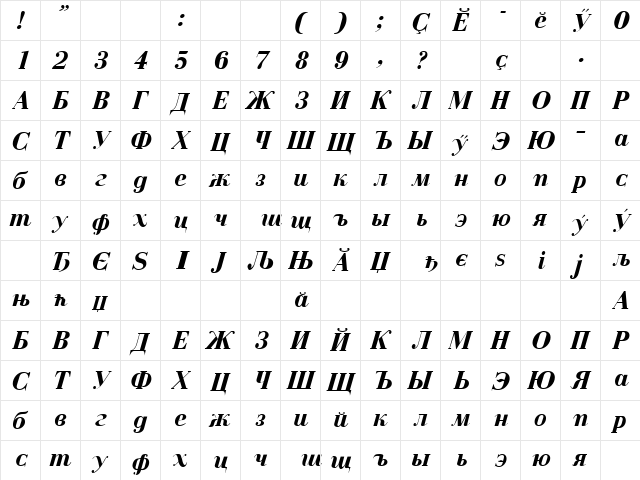
Czar Bold Italik Cuv CNP Bold Italic
Design Context for Czar Bold Italik Cuv CNP Typeface
Czar Bold Italik Cuv CNP offers clean, dependable letterforms without strong stylistic allegiance, making it a practical choice for designers who need flexibility. Its italic angle brings a sense of urgency and motion to the letterforms. Its bold stroke weight gives it real presence on the page.
Pro Tip: Try Czar Bold Italik Cuv CNP for annotation and caption copy alongside an upright companion — the contrast in angle creates a dynamic but ordered typographic system.